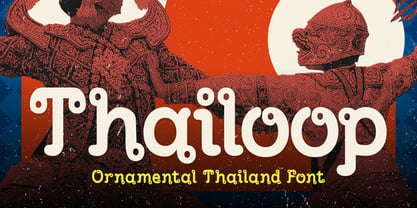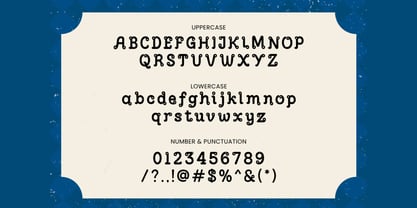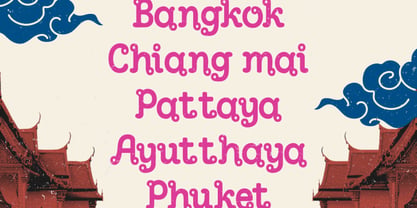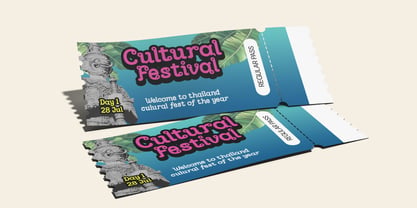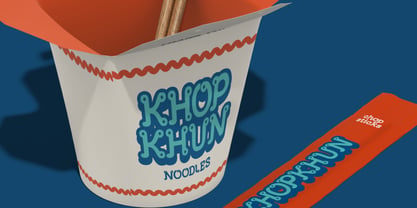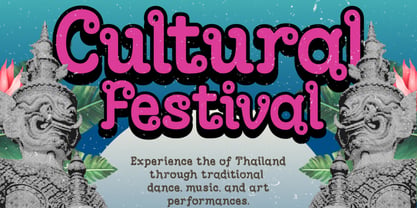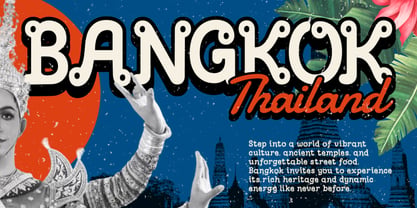
Thailoop
Thailoop is an ornamental display font inspired by traditional Thai decorative motifs and cultural aesthetics. The typeface features unique looped terminals and rounded ornamental details that reflect the elegant visual rhythm commonly found in Southeast Asian design. Thailoop is ideal for design projects that require cultural character and ornamental typography. It works especially well for travel posters, tourism branding, restaurant identities, Asian-themed packaging, editorial layouts, cultural event promotions, and creative marketing materials inspired by Southeast Asian aesthetics.